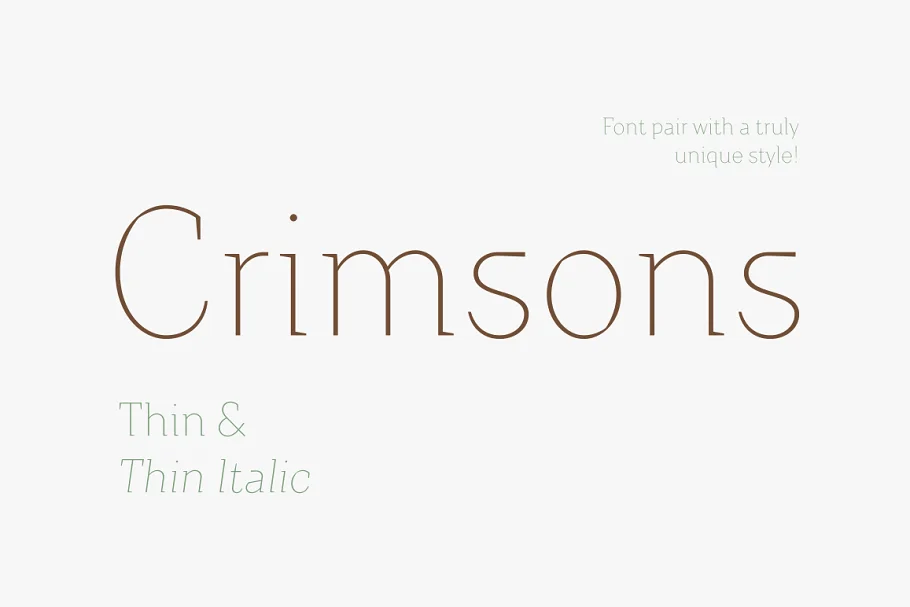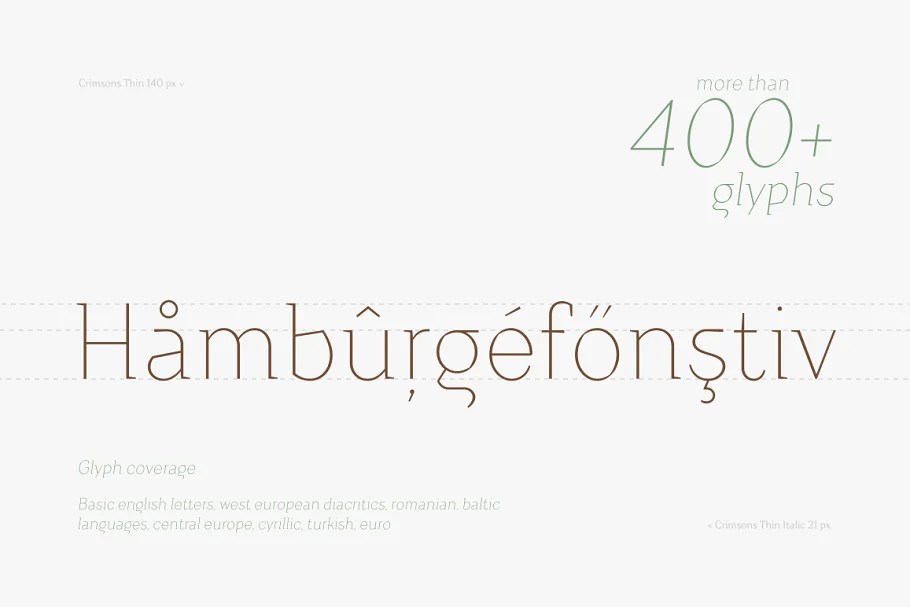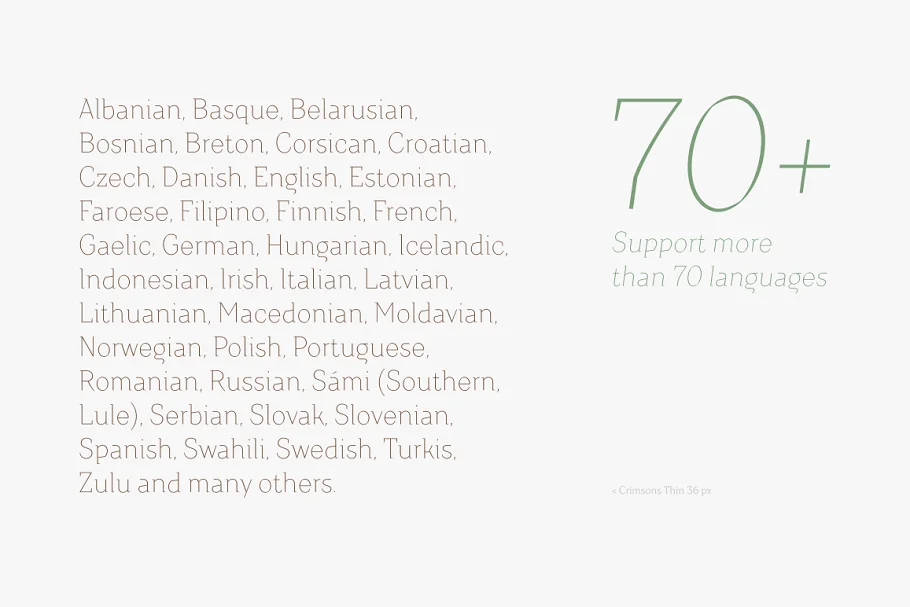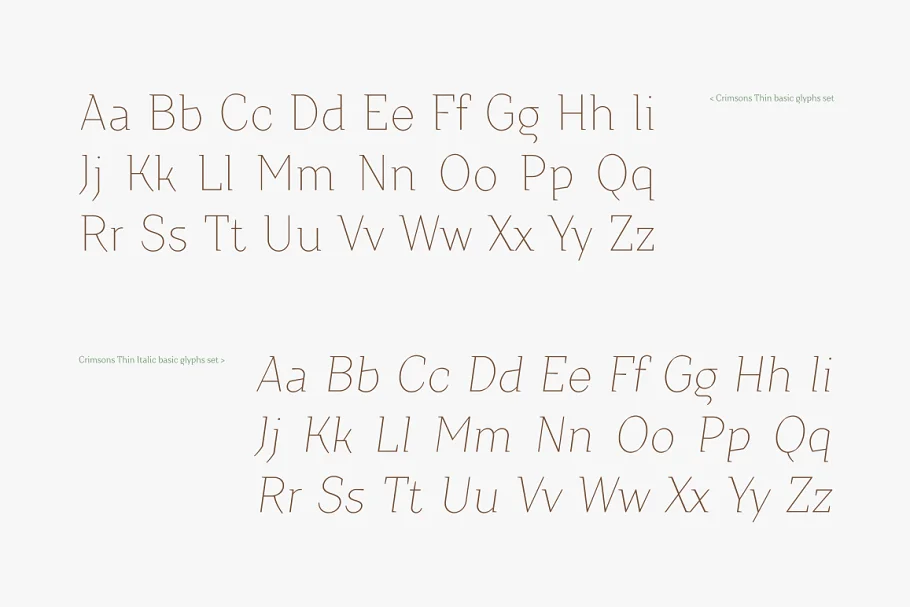
About the Crimsons Thin and Thin Italic Font
To all those who are looking for unusual, but at the same time refined fonts, we present the Crimsons Thin and Thin Italic Font pair.
Sometimes we only need a few faces to make our creative ideas come to life. For this specific purpose, we’ve split some of our popular font families into all-sufficient font pairs.
- 2 typefaces
- 415+ glyphs for each typeface
- Supports 70+ languages (incl. Cyrillic)*
Crimsons are a unique and very unusual font, it combines modern grotesque, medieval motifs, and serif proportions.
These typefaces will be a useful part of a designer collection. Crimsons are ideal for short and emotional inscriptions. Titles, names, logotypes—this is his element.